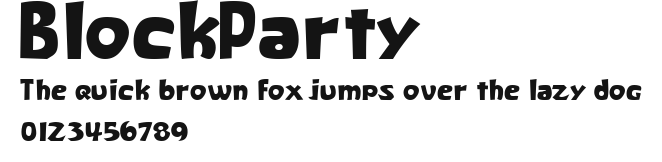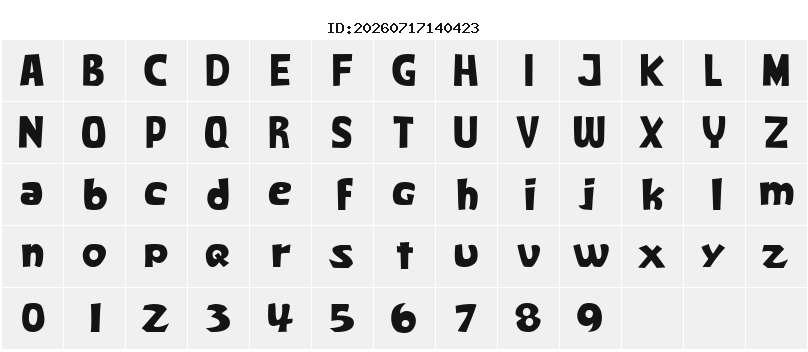
• Font Name: BlockParty
• Font ID: Macromedia Fontographer 4.1 BlockParty
• Full Font Name: BlockParty
• Version: Macromedia Fontographer 4.1 12/02/99
• PostScript Name: BlockParty
• Character Count: 93
About BlockParty.ttf
BlockParty.ttf is a modern, elegant sans-serif font designed for ultimate readability and visual harmony. Perfect for branding, headlines, web design, and print materials.